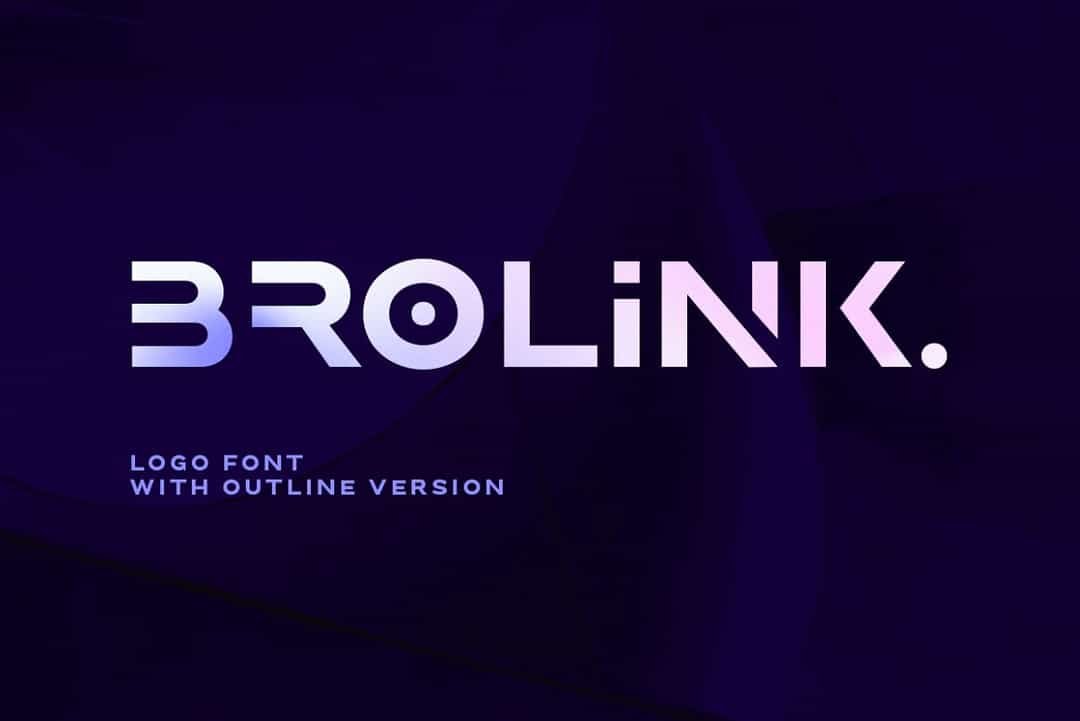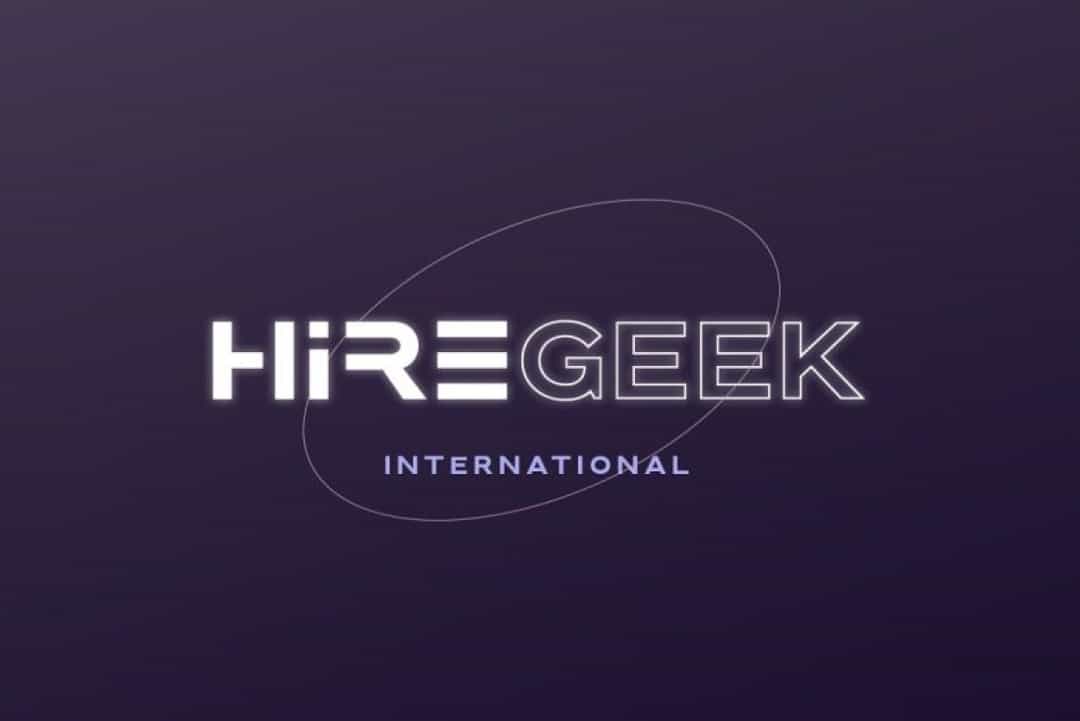
Brolink Logo Font is a large bold sans-serif font featuring distinctive lowercase letters that give your designs an ultra-modern and sci-fi vibe. Perfect for creating logotypes and any use whatsoever – mix and match uppercase characters with lowercase characters to ensure accessibility – Brolink also comes equipped with outline style!